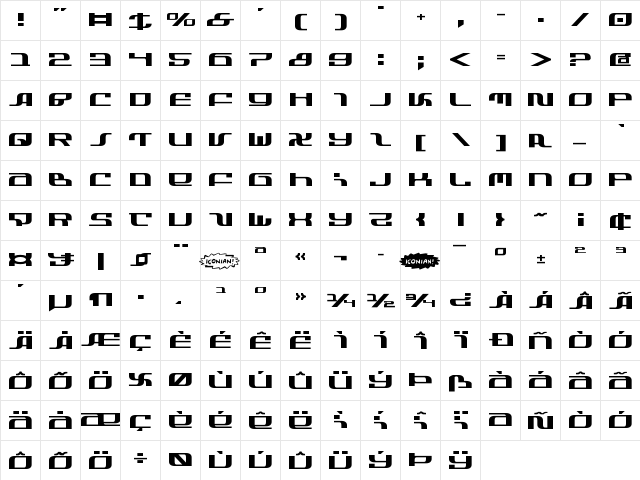
Infinity Formula Expanded Expanded
Design Context for Infinity Formula Expanded Typeface
Infinity Formula Expanded is a composed and adaptable typeface that performs quietly and consistently across a wide range of design contexts.